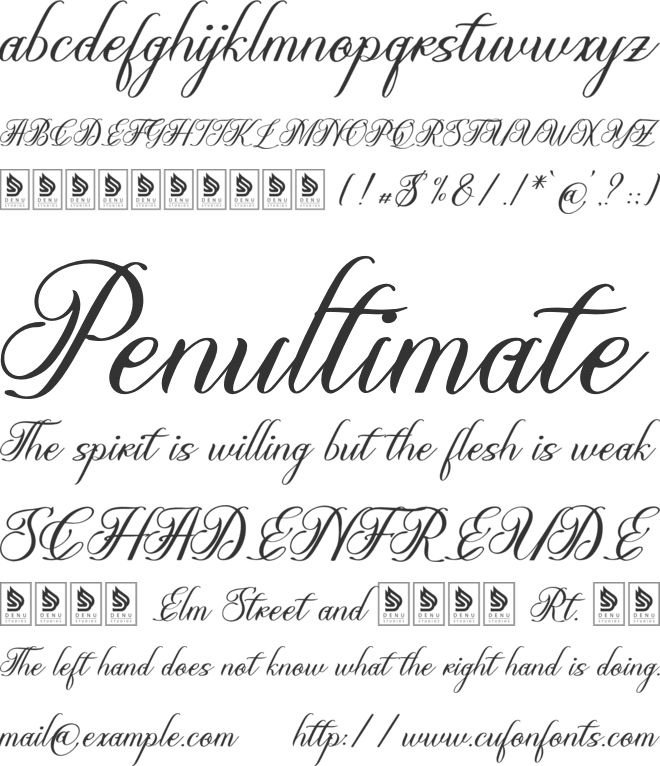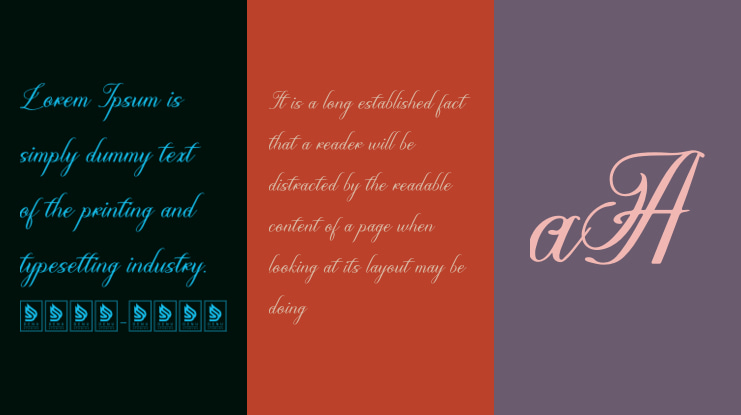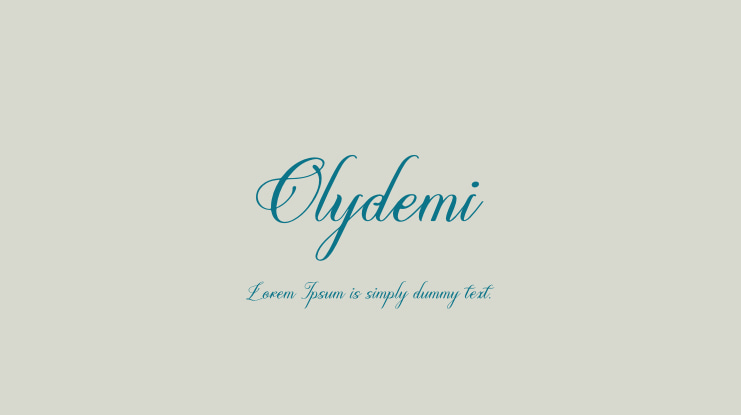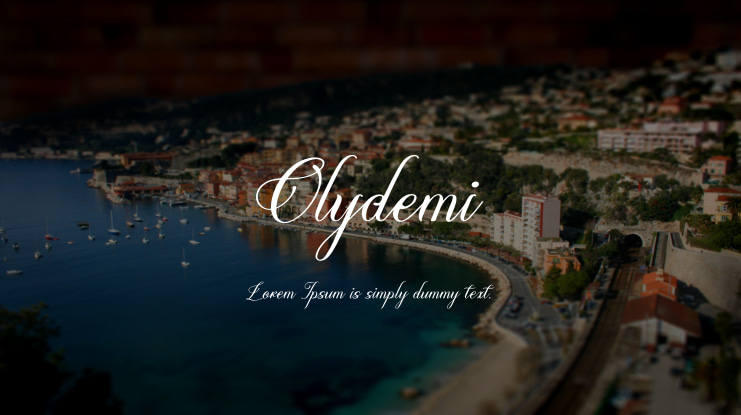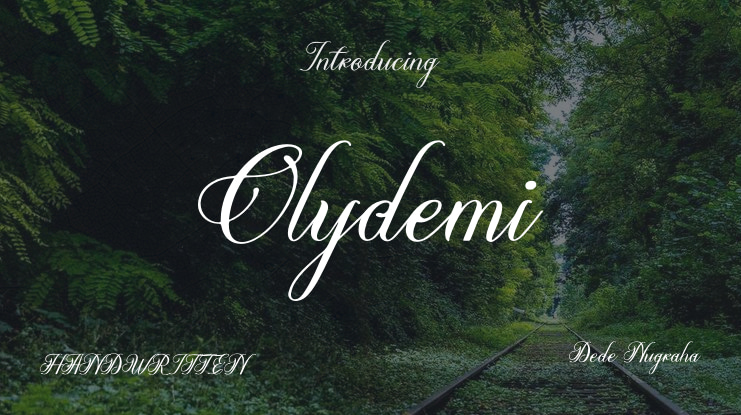
Dede Nugraha
Olydemi | Beauty Script is a versatile font that can be used for various projects including logos, branding, homeware designs, product packaging, quotes, posters, t-shirts, and more. This elegant script font is perfect for adding a touch of beauty to your projects.